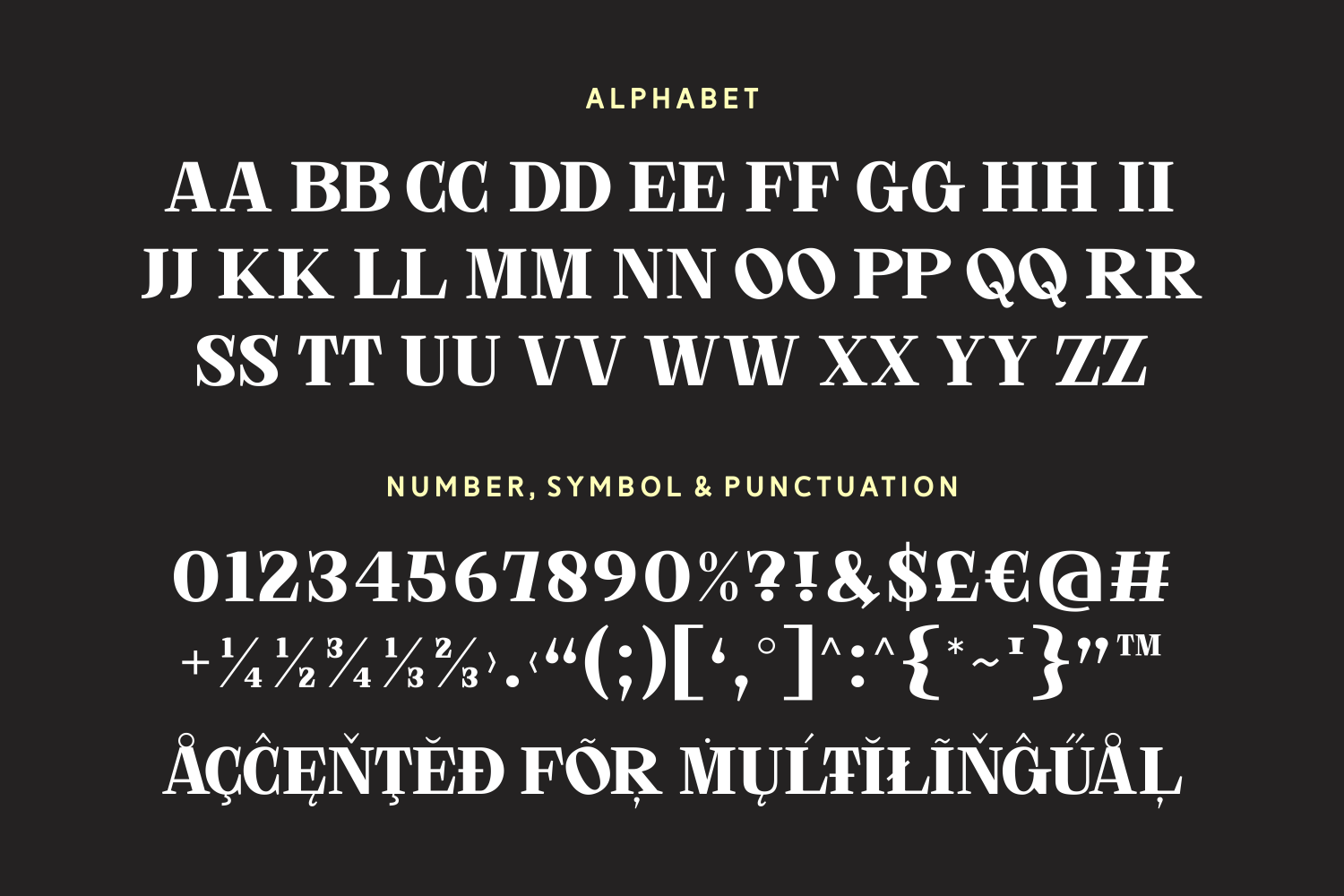
Love Restin is a bold and stylish modern serif font designed to make an impression. Its sharp serifs, high contrast, and refined forms create a powerful and professional aesthetic, ideal for luxury branding, magazine headlines, fashion posters, or editorial design. This typeface radiates strength and elegance in perfect harmony.